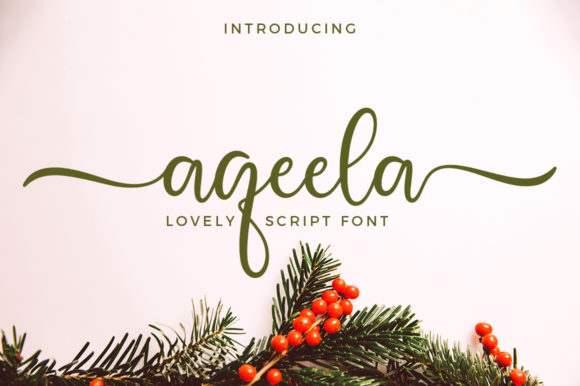
Welcome to the world of Aqeela - a script font that's here to captivate your heart and elevate your designs! Crafted with impeccable detail by the talented team at Typesthetic Studio, Aqeela is the epitome of elegance and creativity.
With its enchanting curves and delicate strokes, Aqeela effortlessly captures the essence of handwritten calligraphy. Let your imagination run wild as you explore the endless possibilities of this script font. Whether you're looking to create stunning logos, heartfelt wedding invitations, or eye-catching product packaging, Aqeela is your perfect partner.
Unleash your inner artist and transform your designs into captivating masterpieces. Aqeela's versatility knows no bounds. Adorn your photos with beautiful watermarks, add a touch of whimsy to your gift designs, or elevate your greeting cards with a personal touch. Let Aqeela's charm seep into every aspect of your creative endeavors.
Experience the ease and convenience of Aqeela's PUA encoding. Access all of the glyphs and swashes with effortless grace, adding intricate details and flourishes to your designs. Unleash your creativity without limits, knowing that Aqeela is ready to turn your vision into a reality.
Make Aqeela your font of choice and embark on a journey of artistic expression. Let its beauty captivate your audience and leave a lasting impression. Whether you're a seasoned designer or just starting your creative journey, Aqeela is the key to unlocking your full potential. Embrace the beauty of script typography and see your designs flourish like never before.